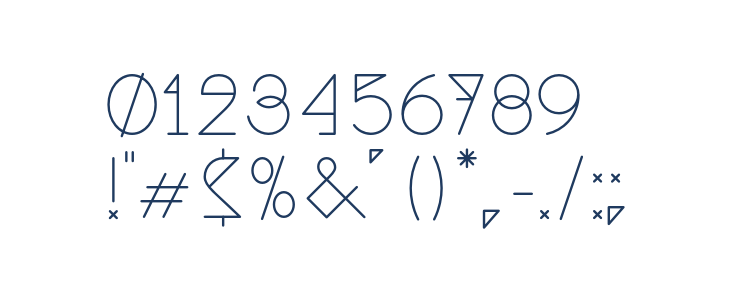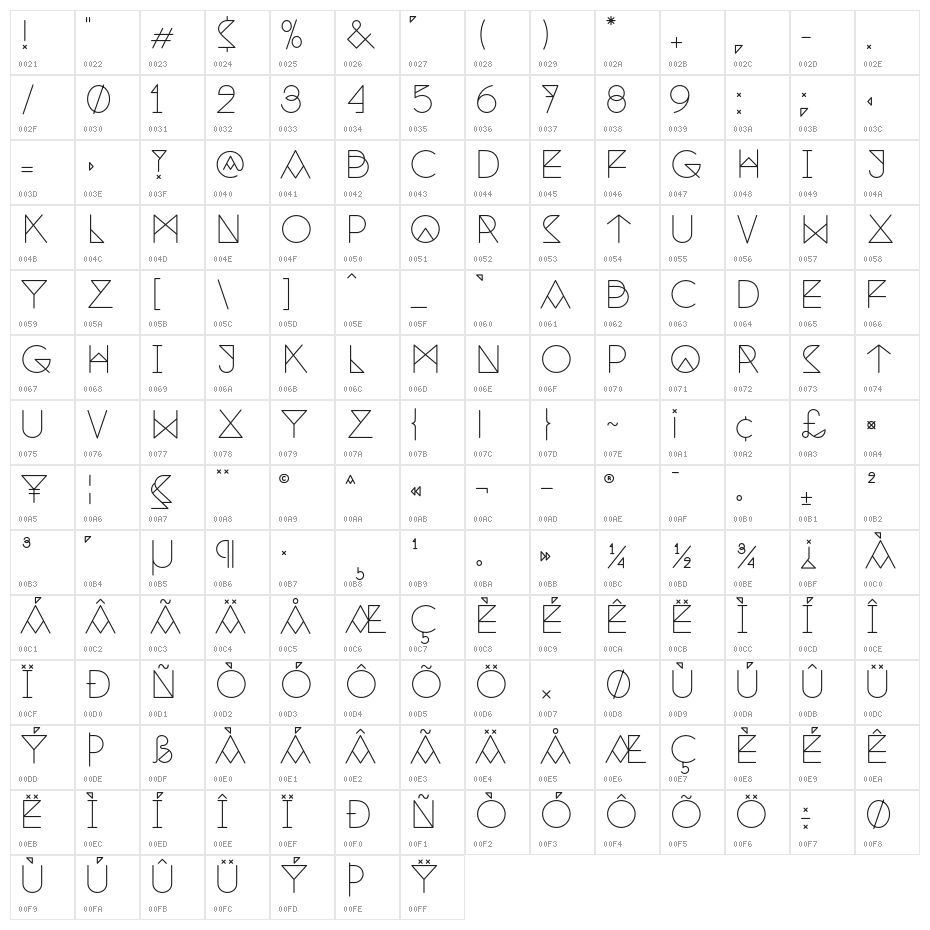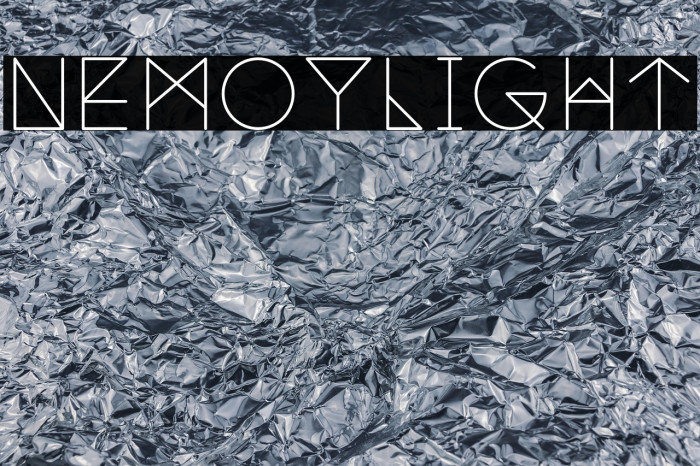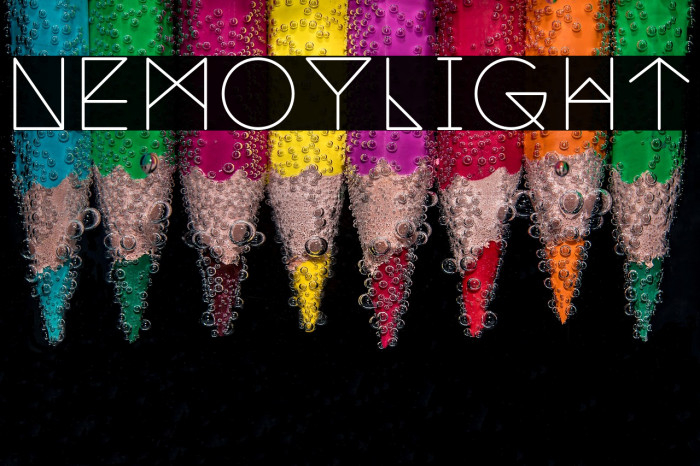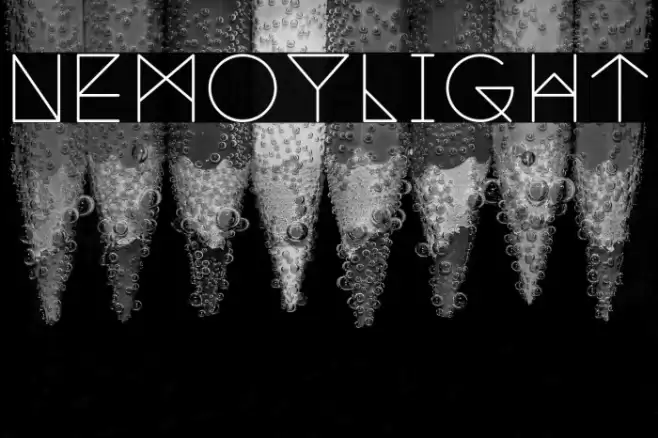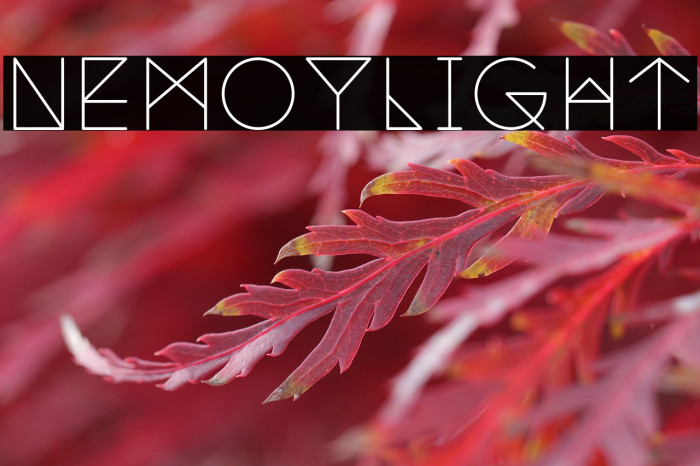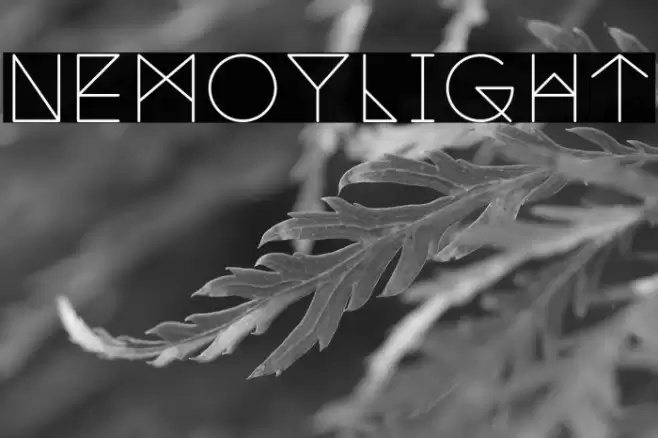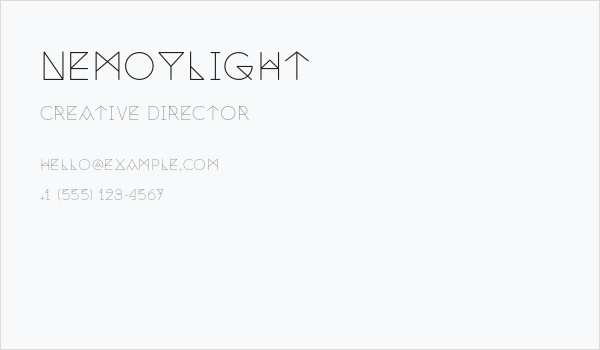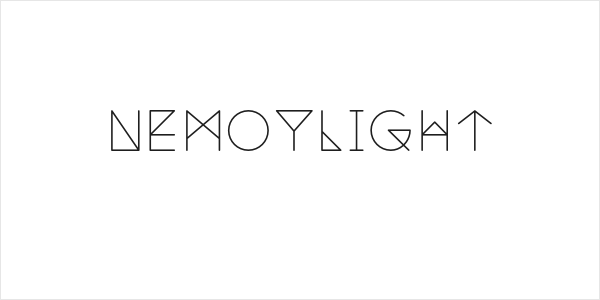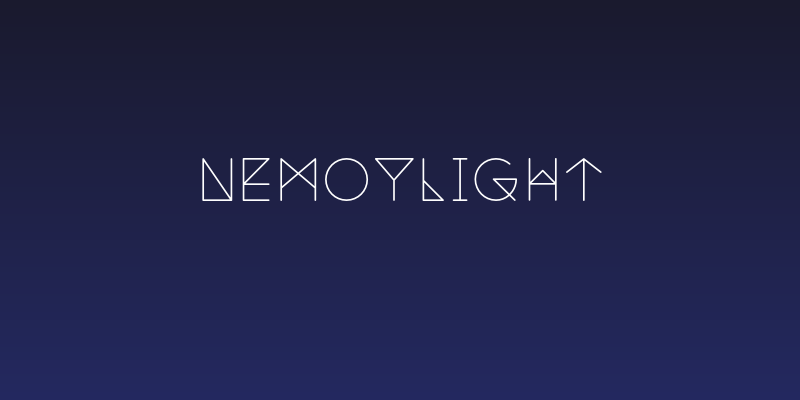
NemoyLight Font
NemoyLight Description
This font features a geometric and minimalist design, characterized by clean lines and angular shapes. The uppercase letters are constructed with a combination of straight lines and sharp angles, giving it a futuristic and modern appearance. The lowercase letters maintain the same geometric style, ensuring consistency throughout the typeface. The numerals are distinct and easy to read, following the same angular design principles. Special characters are included, matching the overall aesthetic with a focus on simplicity and clarity. This font is ideal for projects that require a contemporary and edgy look.
| Proposed Projects | Ideal for modern branding, tech-related designs, and futuristic themes. |